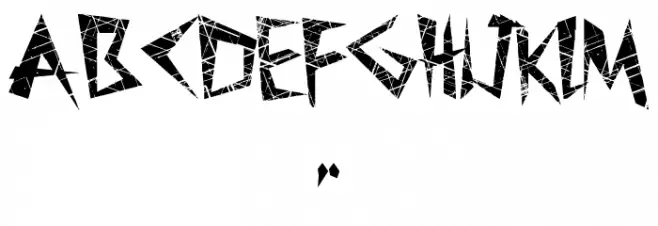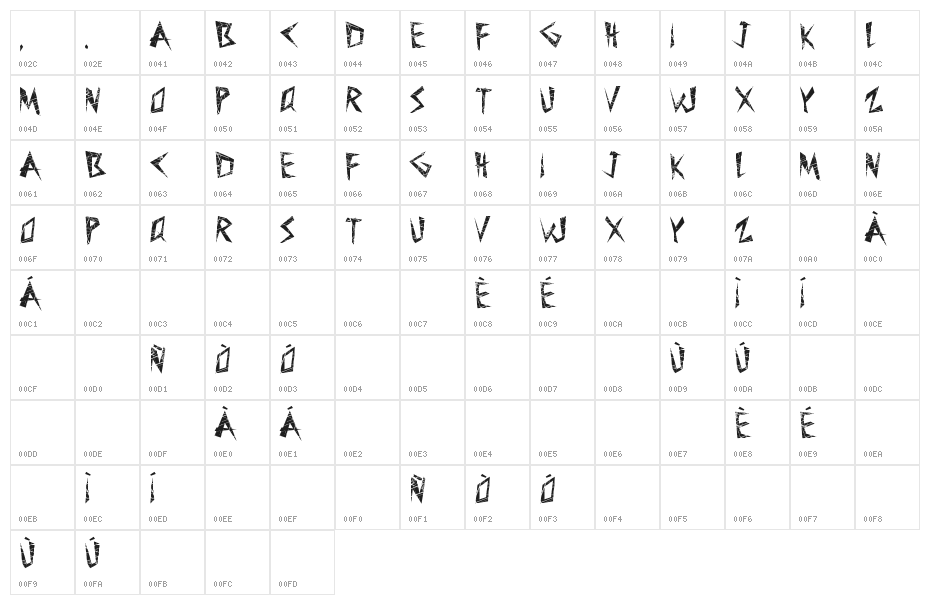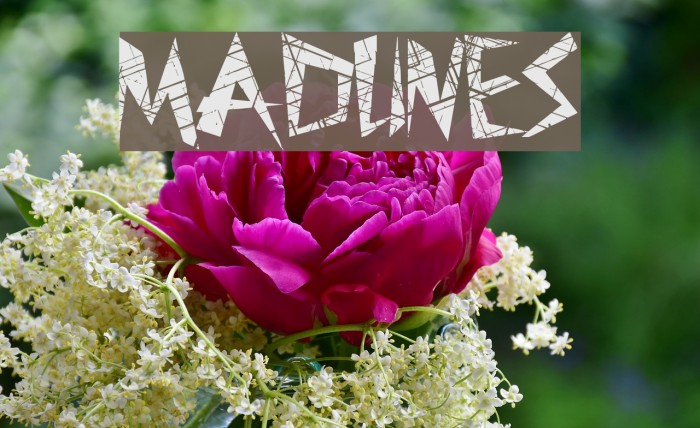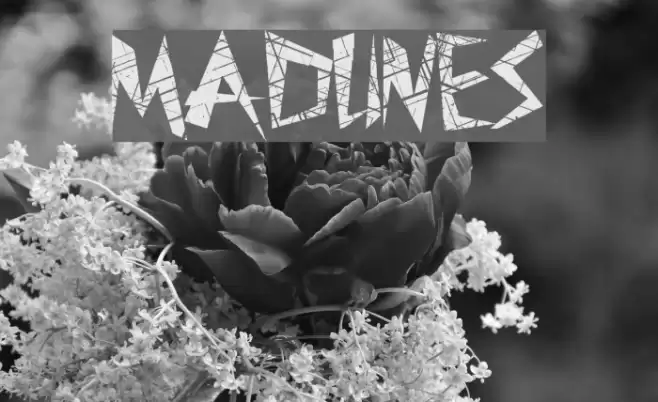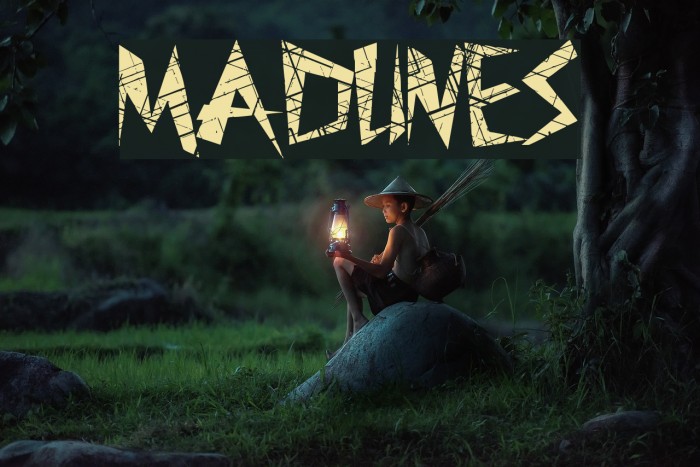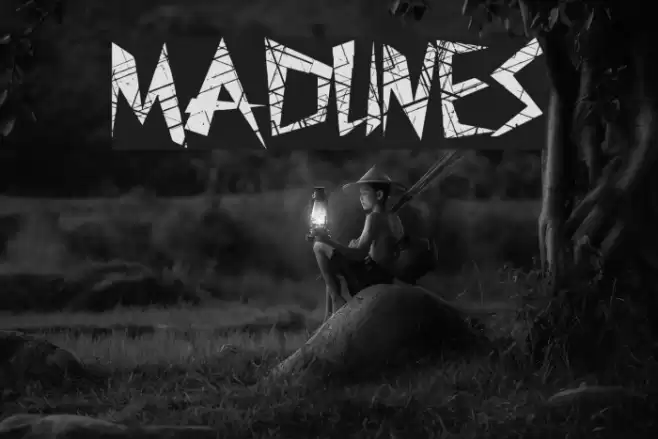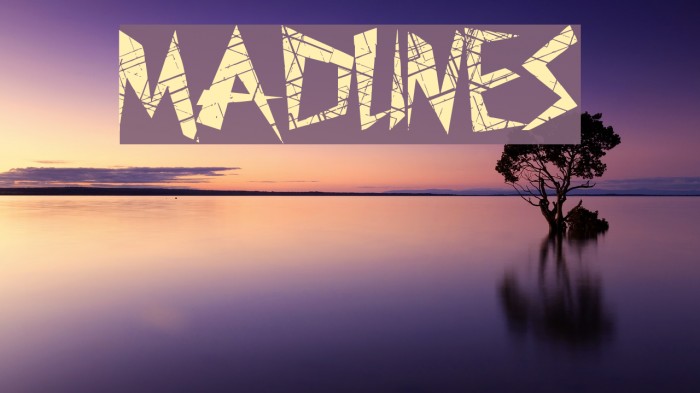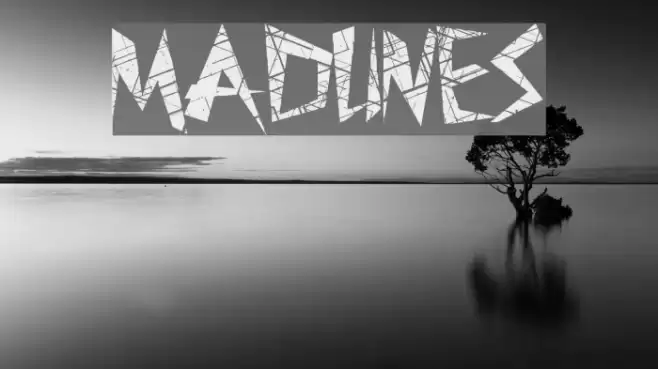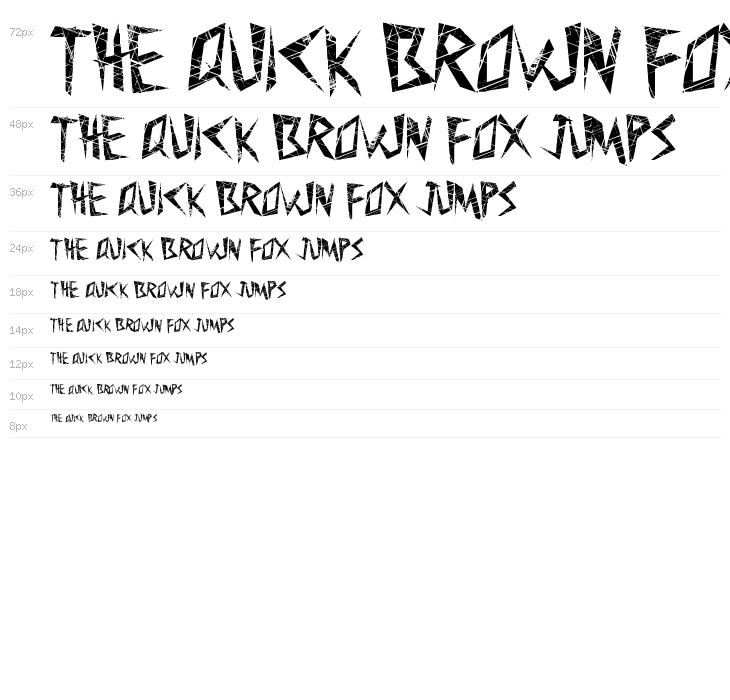
MadLines Font
MadLines Description
This font features a highly distinctive and edgy design, characterized by sharp, angular lines and a fragmented appearance. The letters are constructed with a series of intersecting lines, creating a chaotic yet structured look. The style is reminiscent of shattered glass or a dynamic, abstract pattern, giving it a sense of movement and energy. Each character maintains a consistent height and width, ensuring readability despite the intricate design. The font's unique aesthetic makes it stand out, ideal for projects that require a bold and unconventional look.
| Overall Style | Modern, Edgy |
| Proposed Projects | Ideal for album covers, posters, graffiti art, and edgy branding projects. |